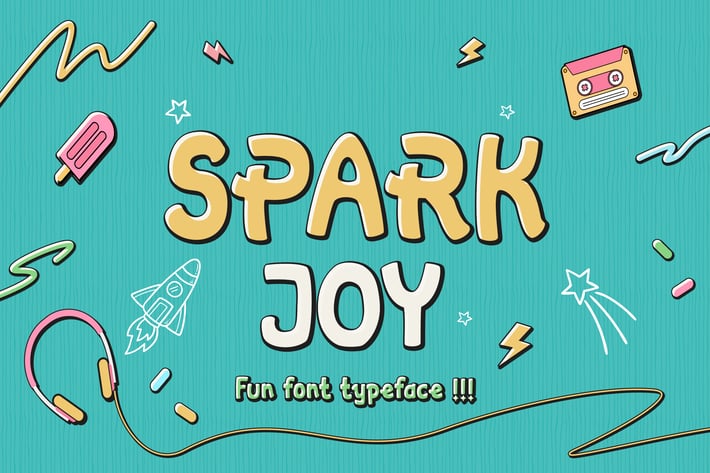
Spark Joy - Comic Display Font
Like its name, Spark Joy will be the starter of all joy that you need.
Suit perfectly for comical books market, online games, teens event poster, school supplies font, poster, movie title, youtube covers, youtube thumbnails, social media page covers and so on...